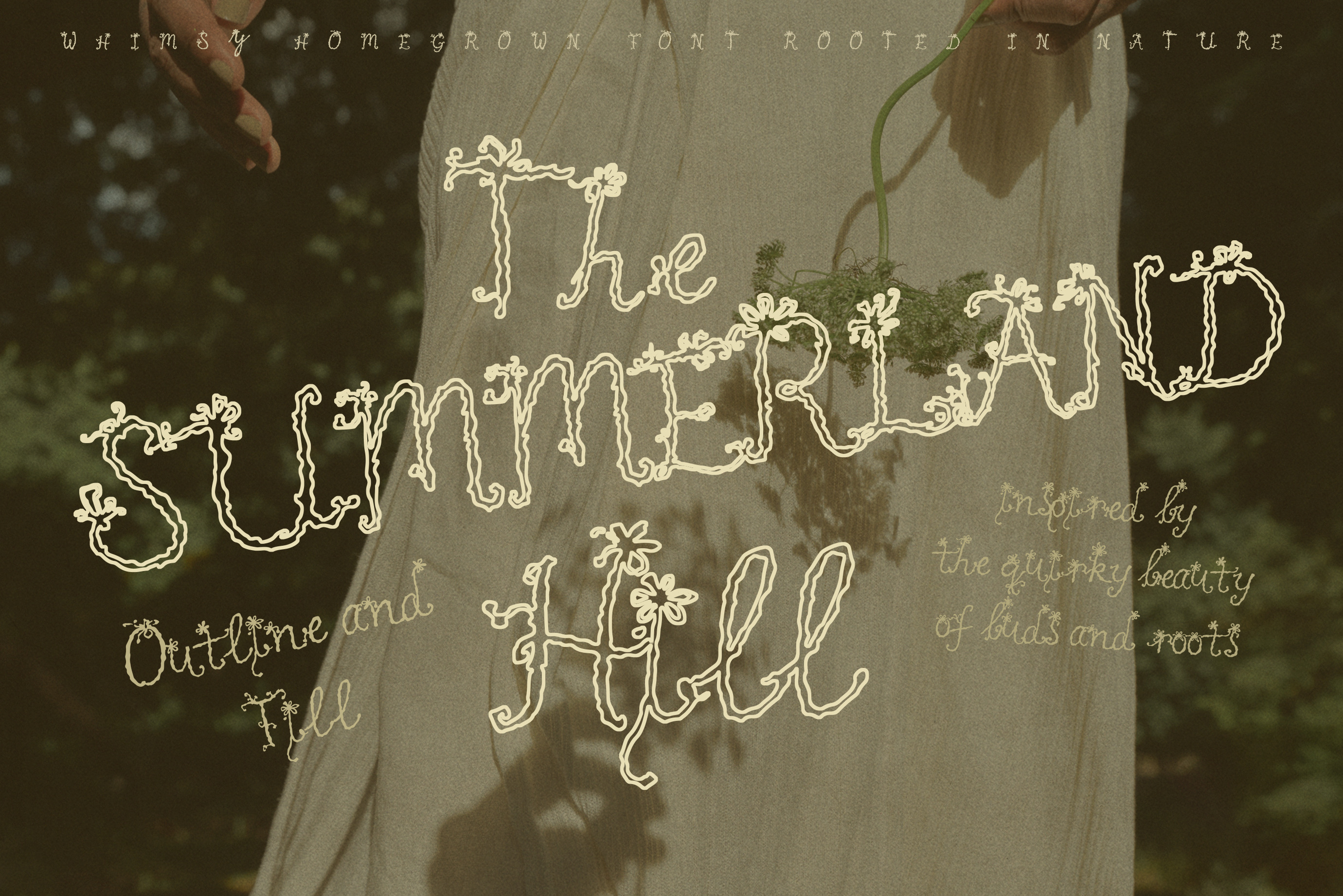
Hand Drawn Floral Whimsy Script Font
Inspired by blooming petals and deep, earthy roots, Summerland captures the free-spirited essence of 70s hippie culture with a soft, whimsical twist. This dreamy floral font blends organic shapes with a romantic, slightly eccentric flow, making it perfect for cottagecore aesthetics, romantic wedding stationery, and modern bohemian branding.
Whether used for fashion labels, packaging, social media, or editorial layouts, Summerland adds a warm, nostalgic charm that feels both playful and refined. Designed for creatives who want to stand out with a unique flower font, it brings a sense of ease, nature, and storytelling to every design.